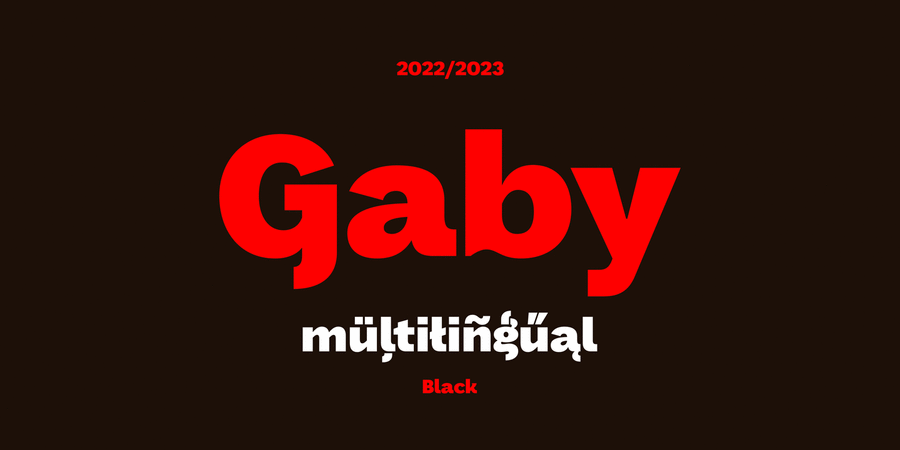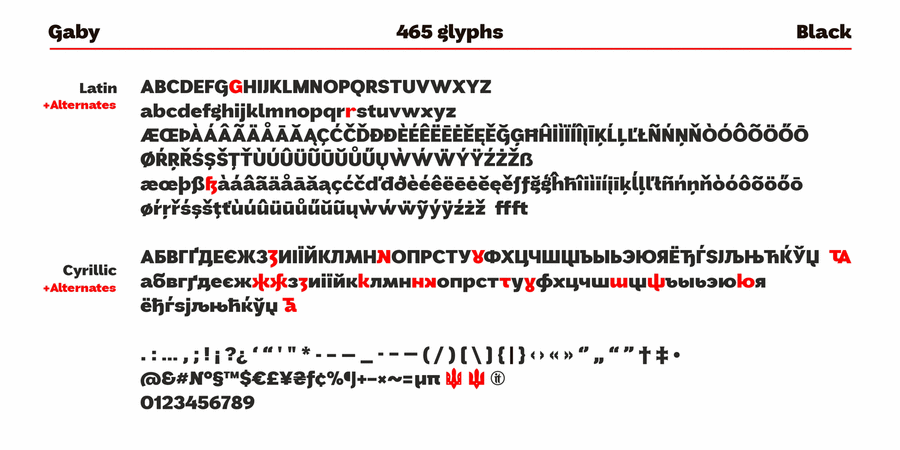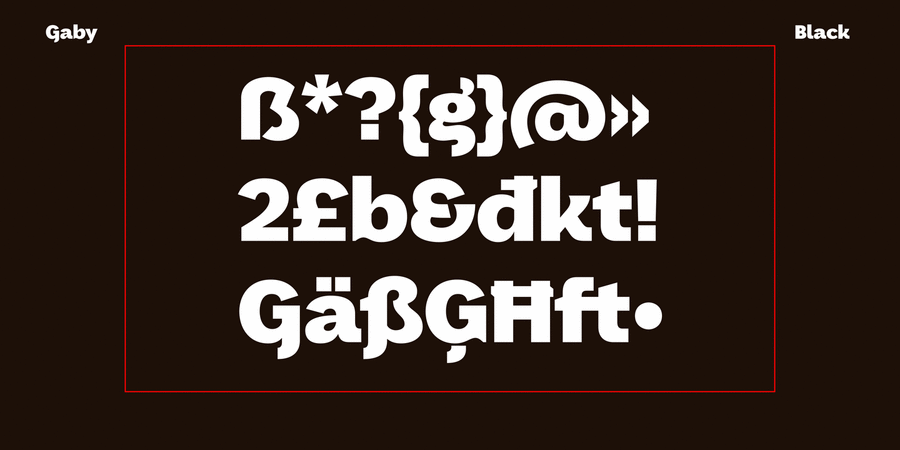
Gaby Black is a powerful grotesque with wide proportions and a friendly character. Contains Latin Pro basic characters, Cyrillic and alternative letters of Ukrainian Cyrillic, as well as an experimental Ukrainian two-syllable ampersand for capital and lowercase letters (TA, та). Application: visual identification, publishing, social and individual projects, etc. The typeface was designed by Tetiana Ivanenko in 2022-2023.